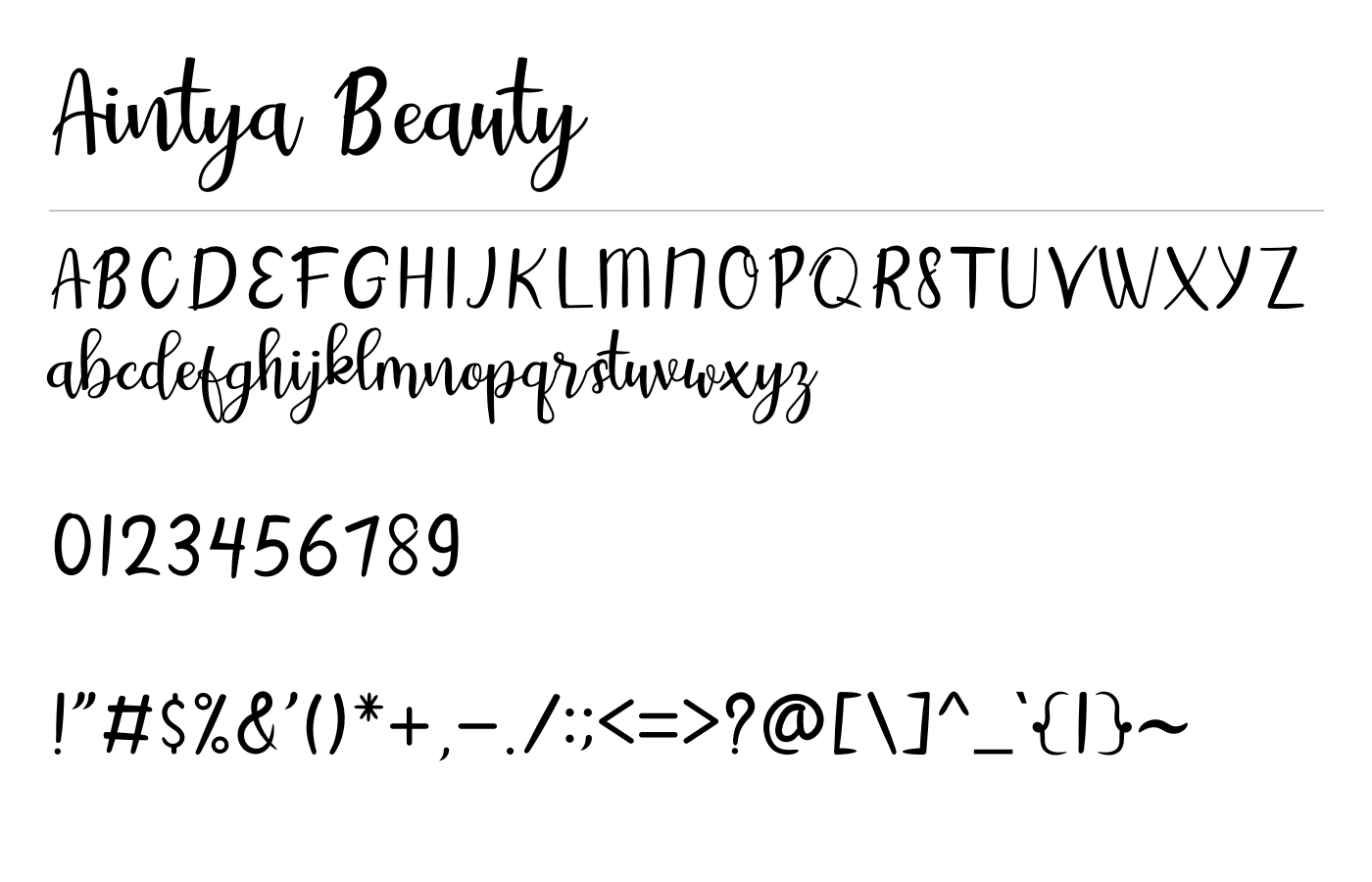
Aintya Beauty is a playful and charming handwritten script font with a casual, slightly whimsical feel. It combines smooth, flowing lowercase letters with taller, more upright uppercase characters, creating a friendly and approachable style perfect for branding, invitations, and creative projects seeking a personal touch. Its clean strokes and balanced spacing make it versatile for both digital and print use, adding warmth and personality wherever it appears.
Aintya Beauty Font
About Aintya Beauty Font